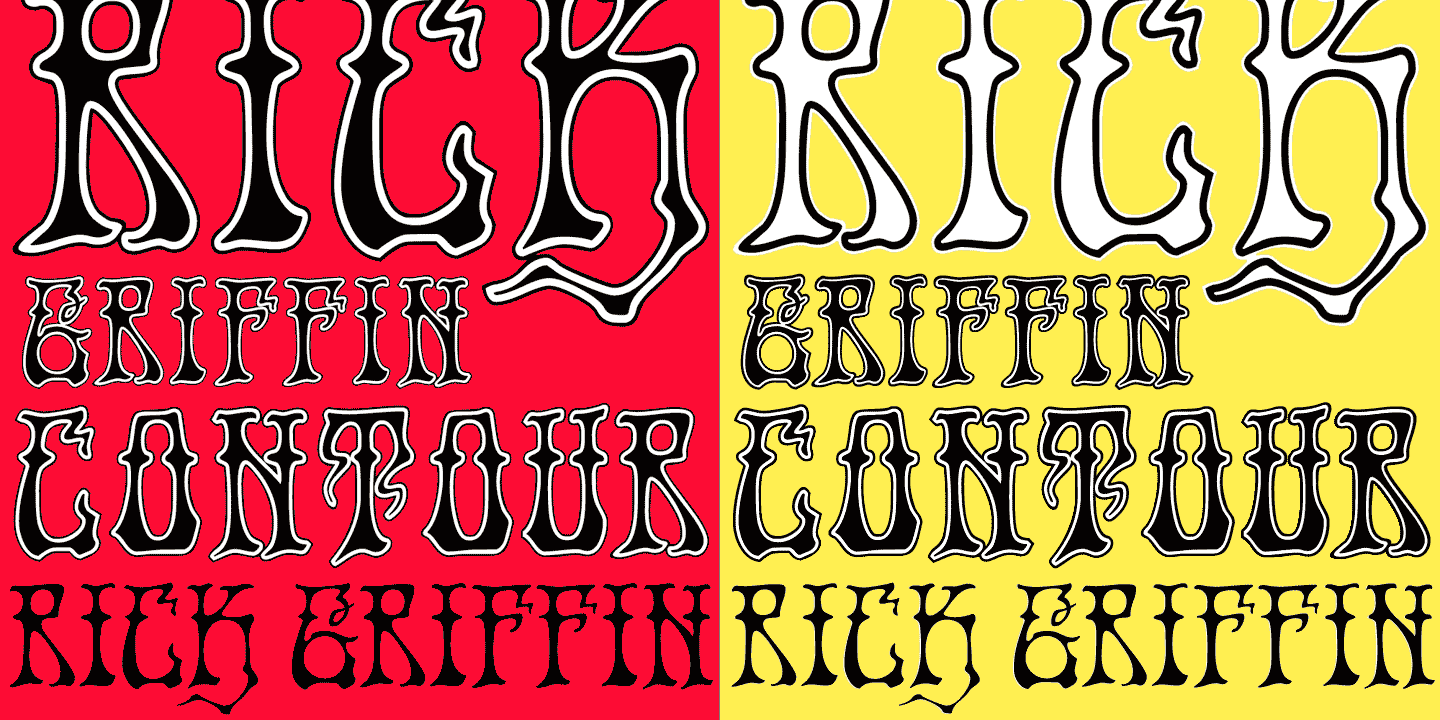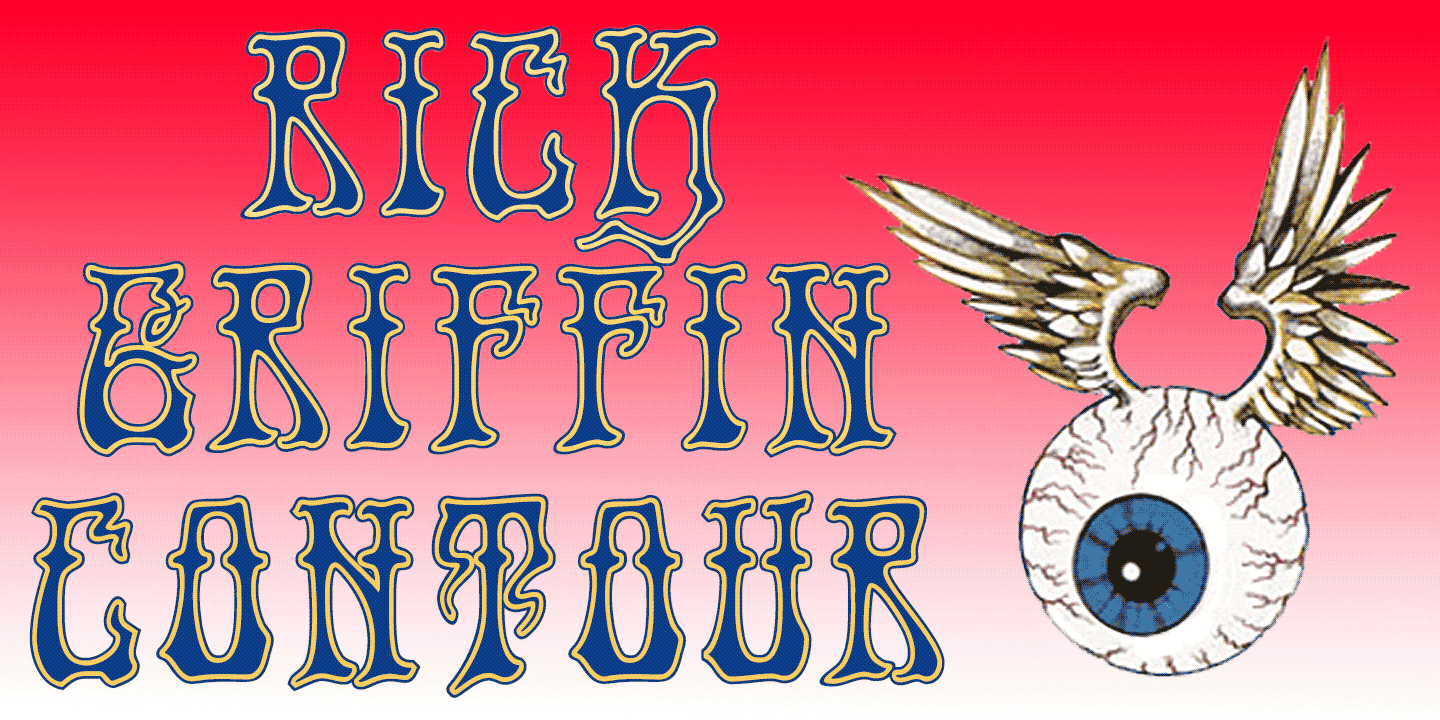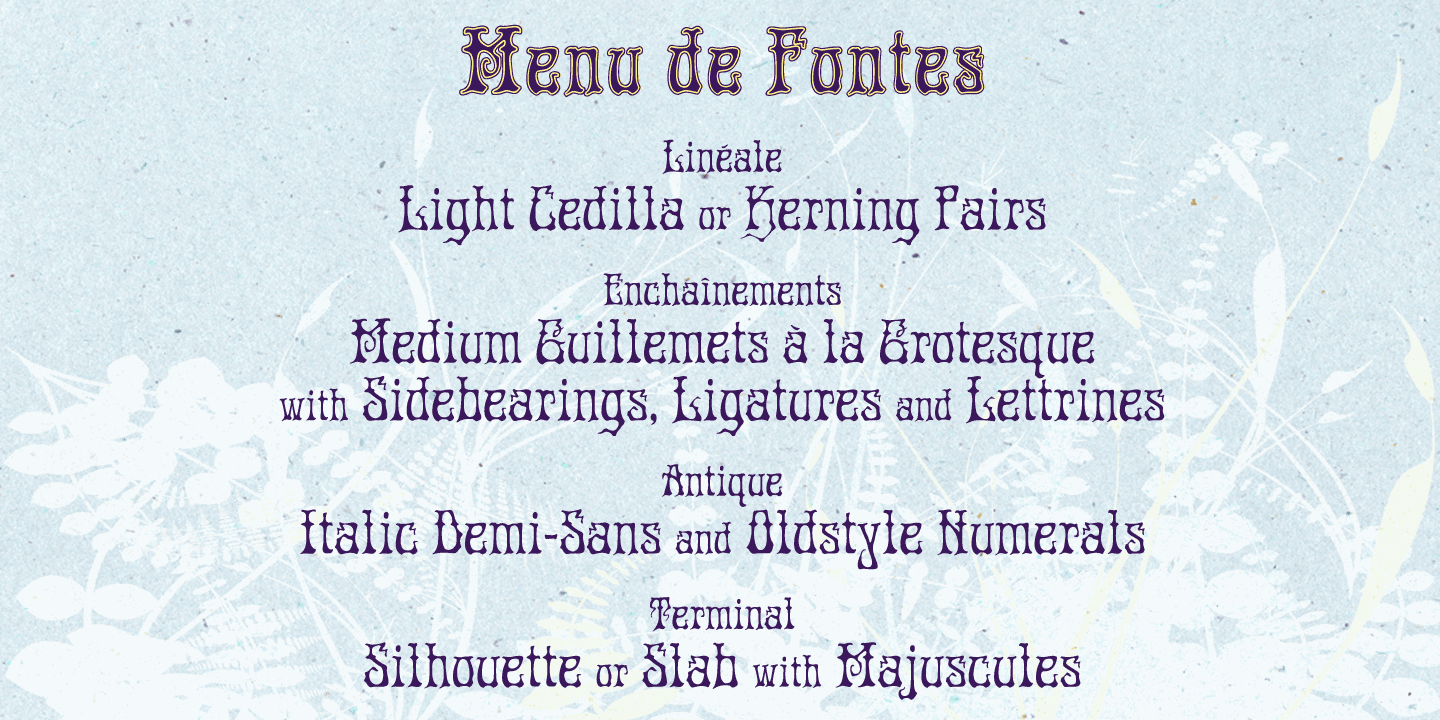
Rick Griffin
Font Family by K-Type
The Rick Griffin fonts are based on the 1960s psychedelic poster lettering of the Californian artist.
Rick Griffin is the regular font without outlines.
The Rick Griffin Contour font has the additional outline characteristic of many Griffin posters, and the matching Rick Griffin Contour Ground font can be overlapped to create bicolor artwork.
The family includes all three fonts.